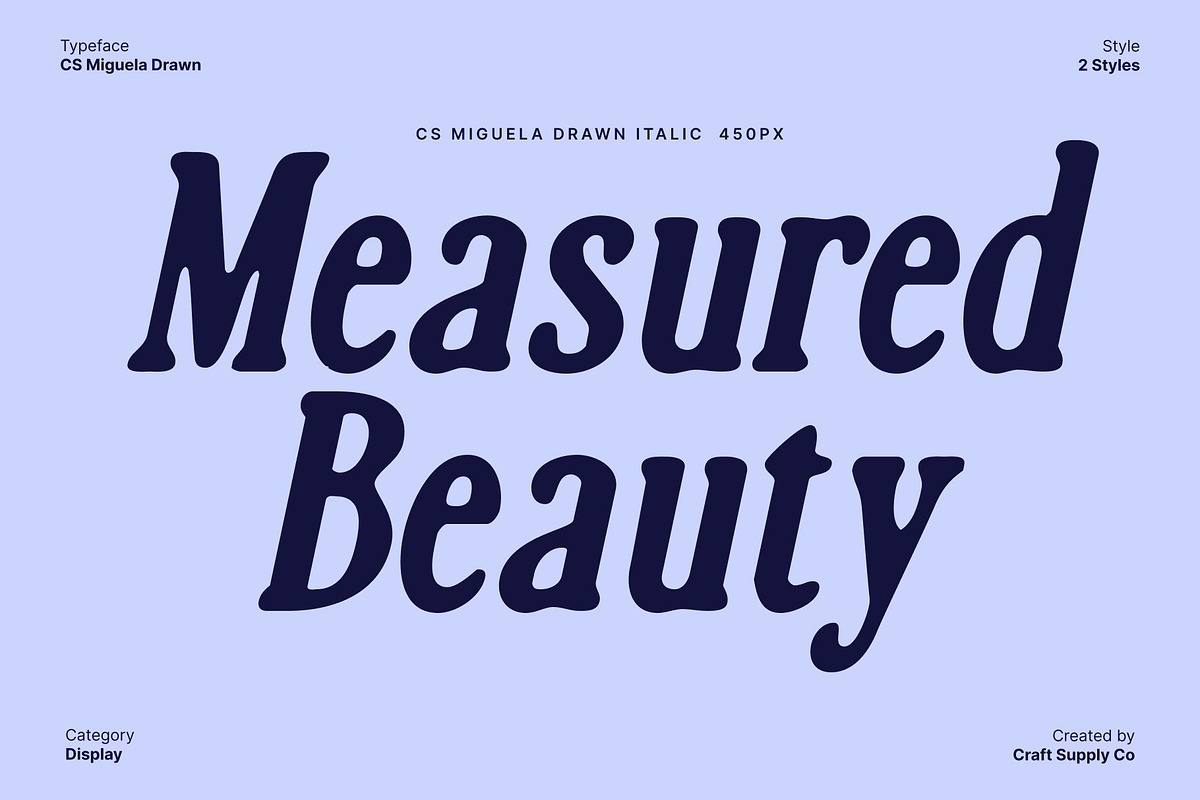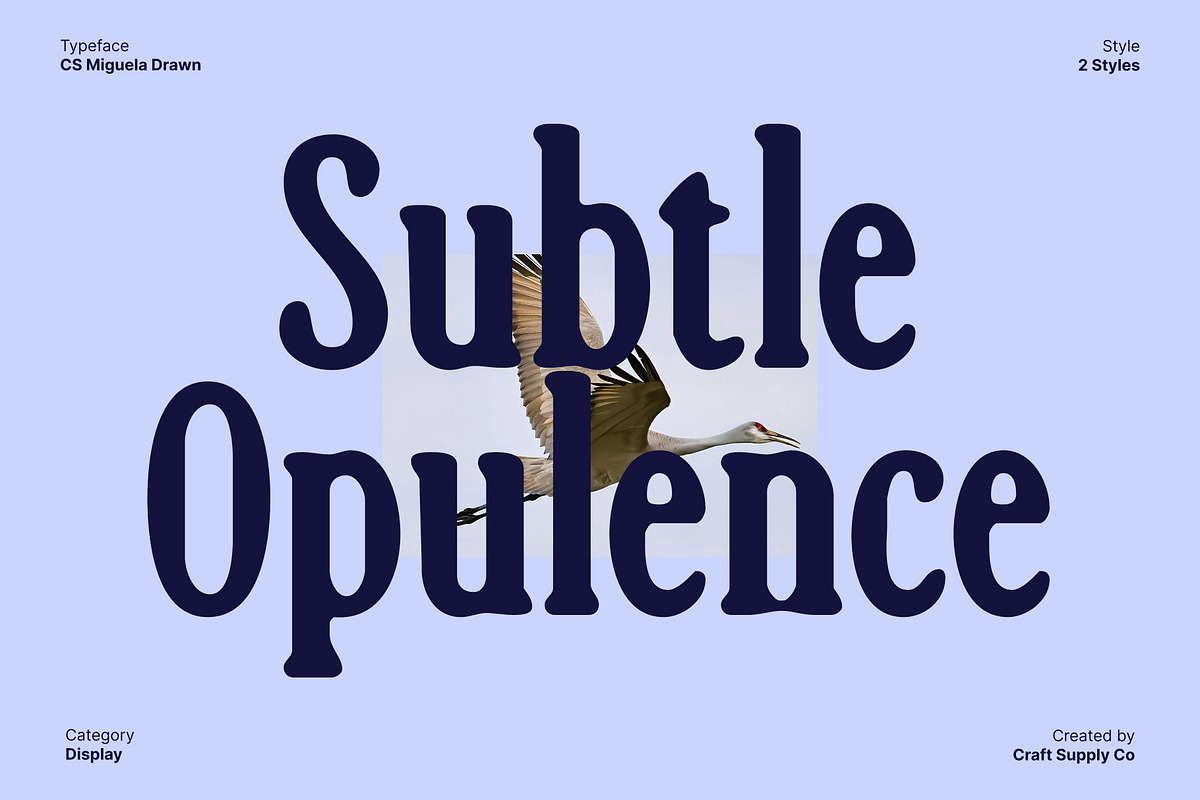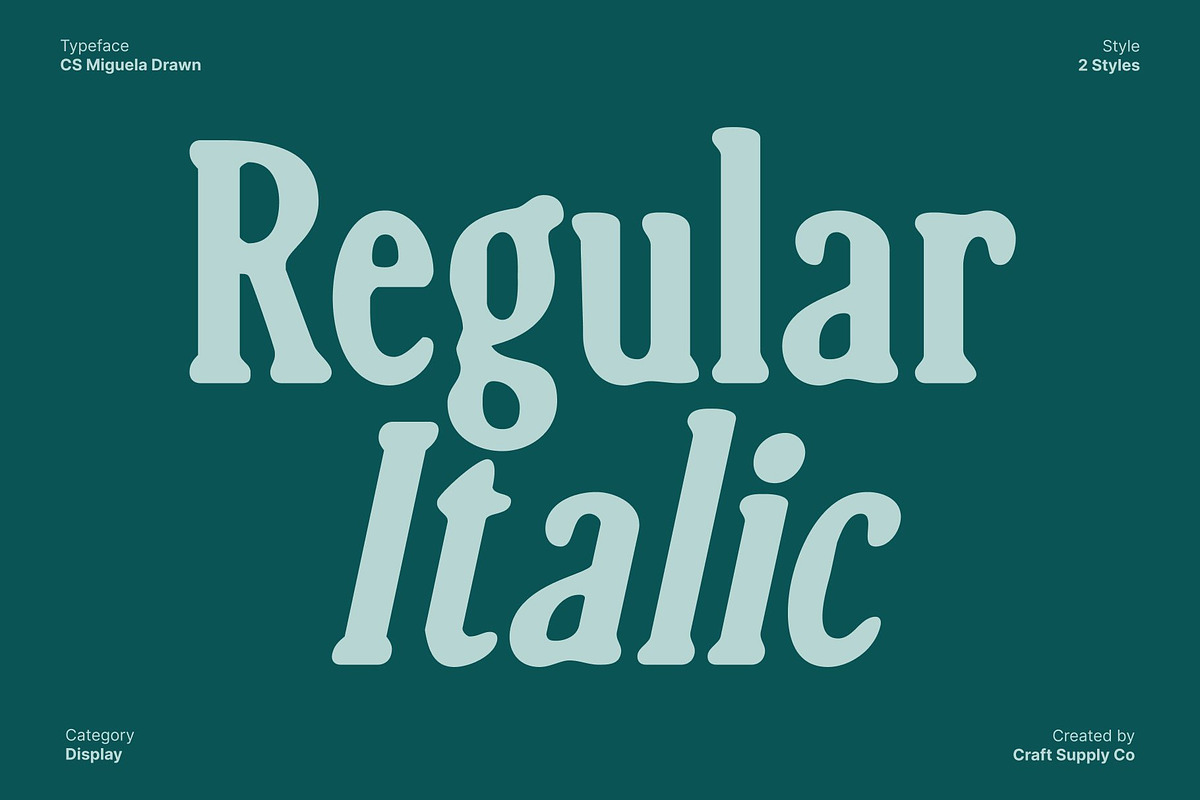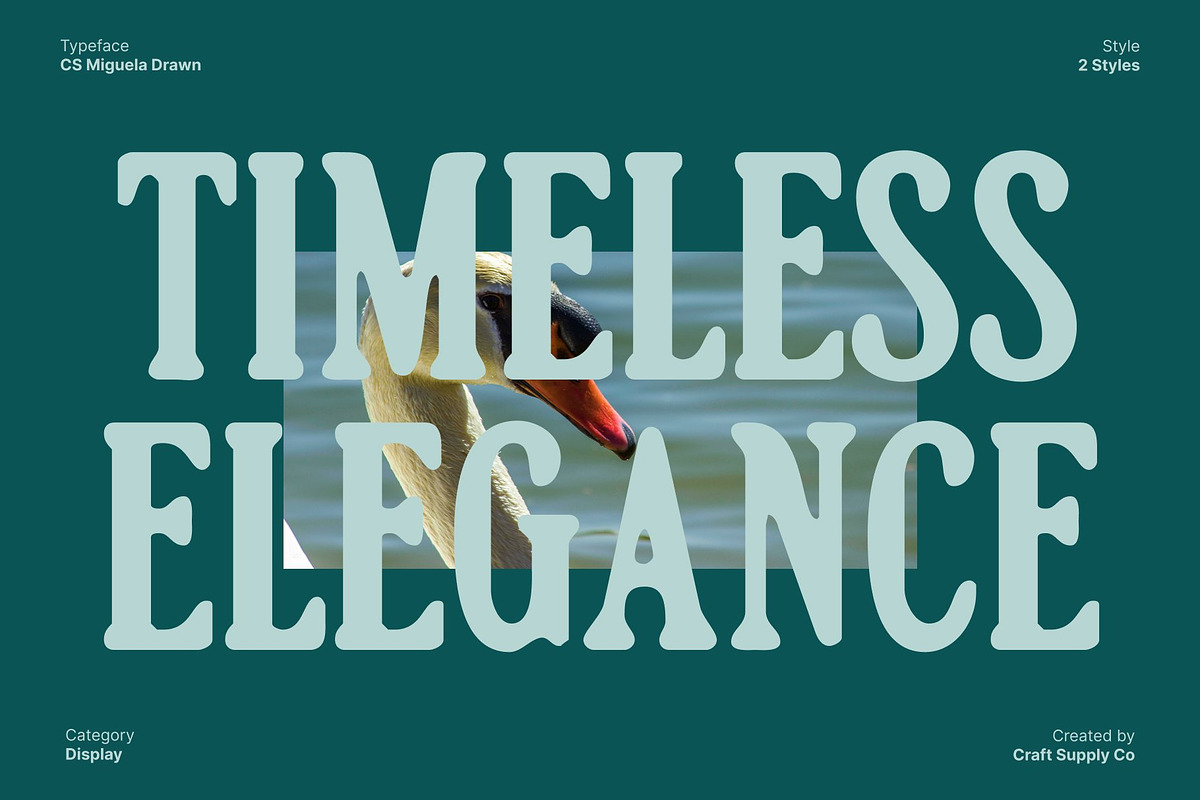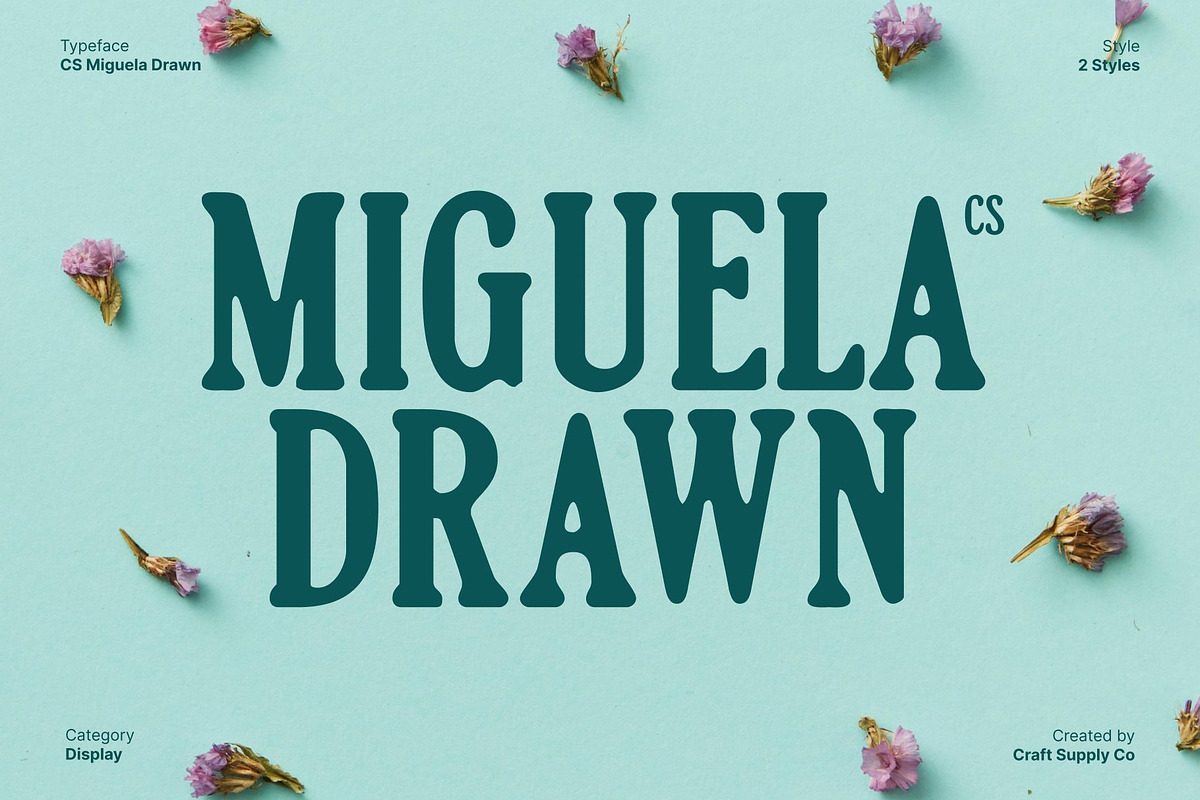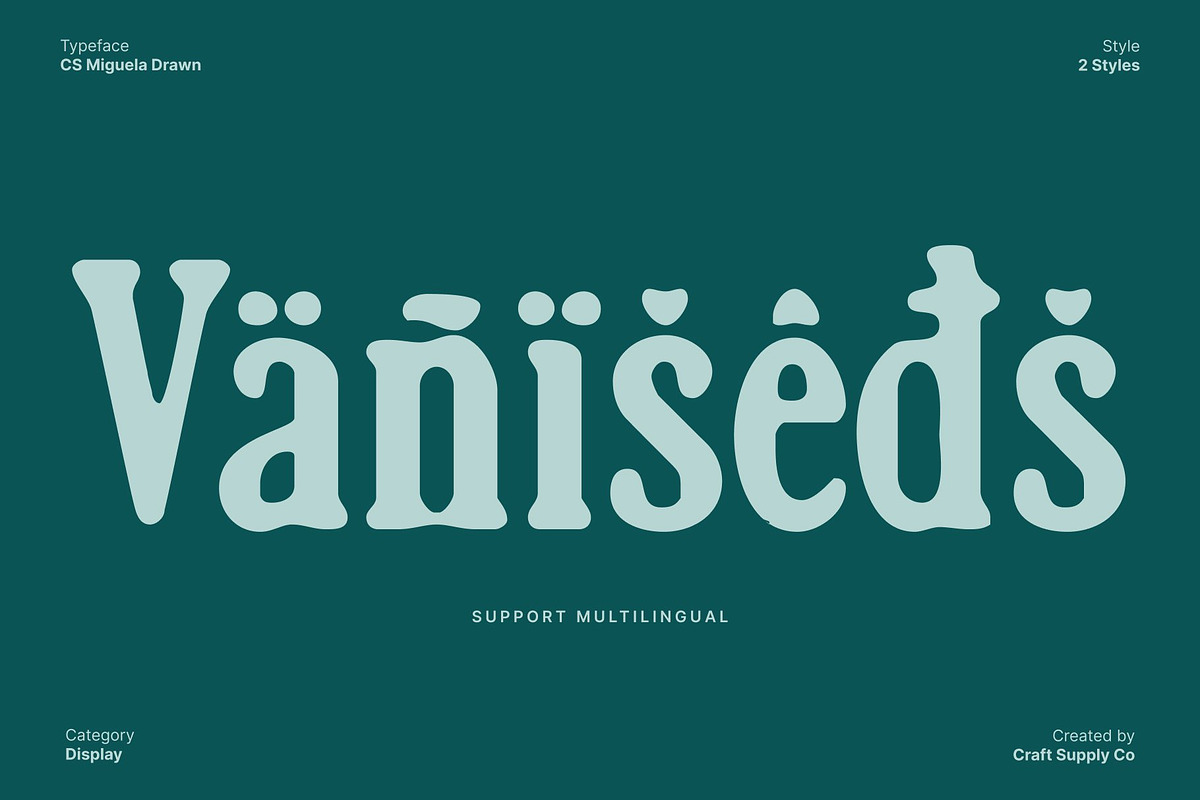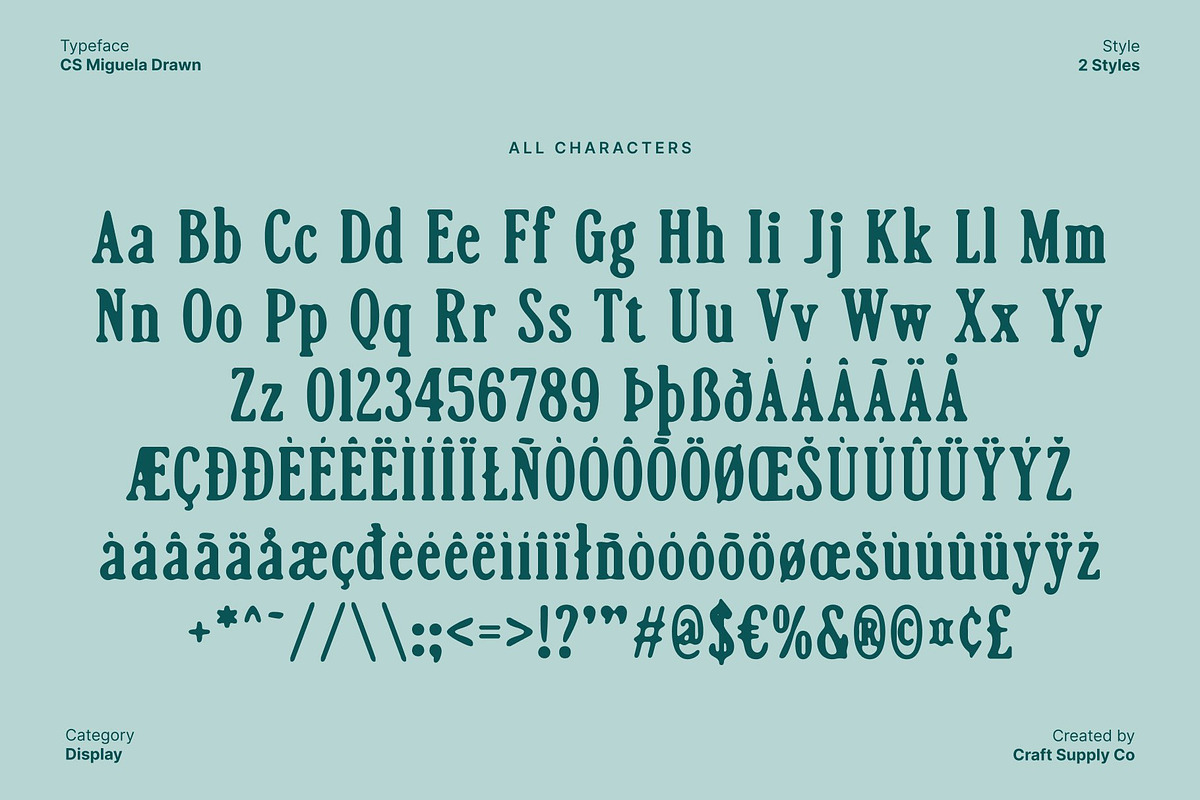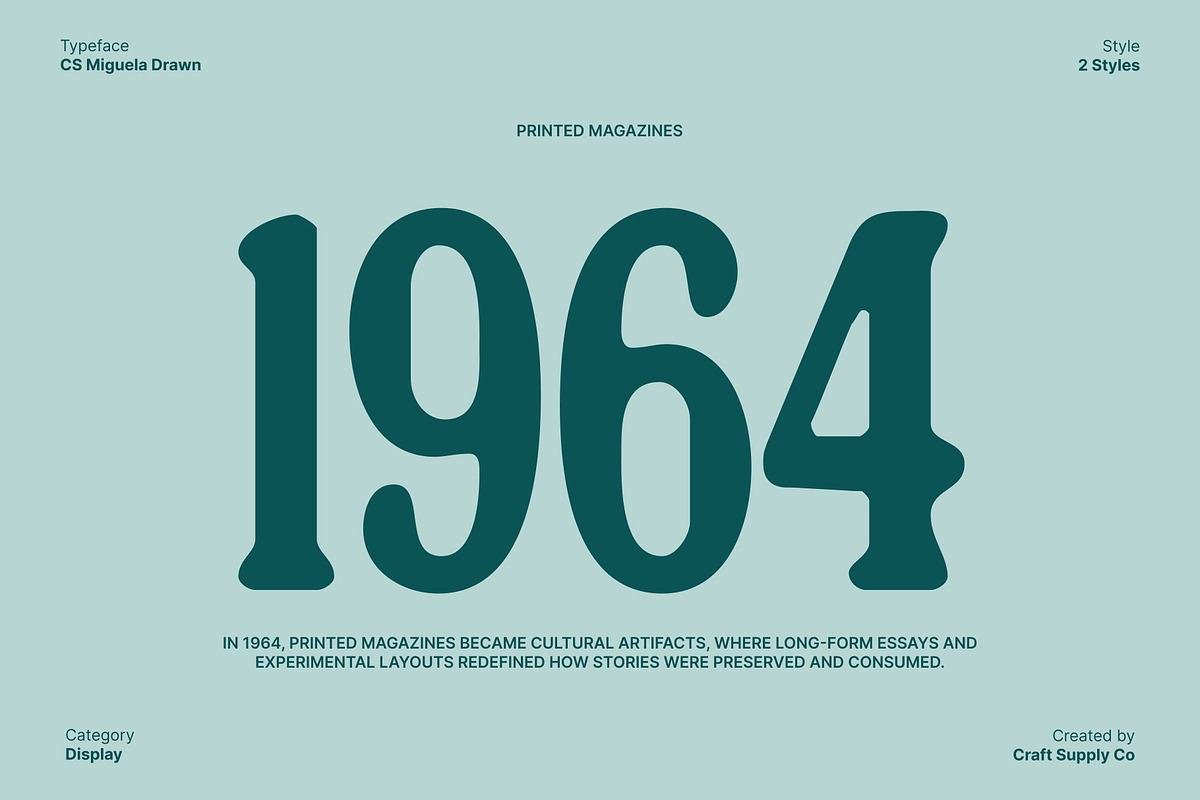
CS Miguela Drawn
CS Miguela Drawn – Classic Serif Font with Timeless Elegance
Classic Serif Font with Drawn Heritage This is a classic serif display font rooted in traditional typography, enhanced with a subtle hand-drawn texture that adds warmth and character. Inspired by ancient inscriptions and timeless engraved letterforms, this typeface features fine serifs, graceful proportions, and a refined contrast between thin strokes. The drawn effect brings an organic, human touch to its formal structure, resulting in a font that feels historic, cultured, and beautifully expressive.
Balanced Letterforms with Sophisticated Detail Every character in this font is crafted with care, showcasing wide letterforms, elegant curves, and precise detailing. The balanced construction creates a smooth visual rhythm that supports readability while maintaining a dignified and intellectual appearance. Its refined shapes communicate clarity and authority, making the font feel poised, confident, and thoughtfully designed.
Traditional Elegance for Luxury and Editorial Design This font excels in high-end applications where timeless elegance and credibility matter most. Its classic serif style conveys trust, heritage, and sophistication, making it ideal for luxury branding, editorial layouts, books, cultural publications, and refined packaging. The drawn texture softens its formal tone, adding depth and personality without compromising its prestigious character.
Timeless Typography for Formal and Professional Use Designed to endure visual trends, offers lasting appeal across both print and digital media. It performs beautifully in logos, invitations, institutional branding, and premium design projects that require a sense of tradition and refinement.